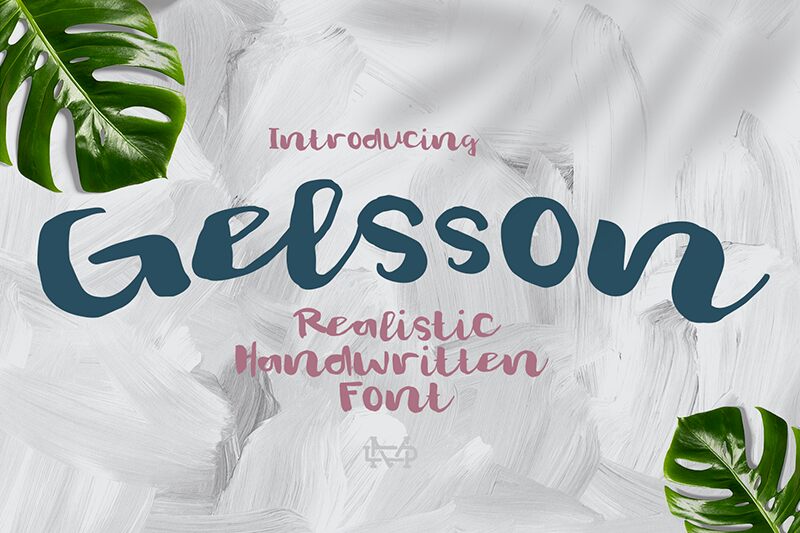
Gelsson Demo
Gelsson, a captivating brush-style font created by madeDeduk, exudes a bold and dynamic presence. Blending organic fluidity with a strong, confident structure, this typeface commands attention with its assertive strokes and distinctive character shapes. The bold weight amplifies the font's expressive qualities, lending an air of sophistication and elegance to any design. Gelsson's unique aesthetic invokes a sense of artistry and passion, making it a compelling choice for branding, headlines, or any project seeking to convey a bold, artisanal aesthetic.
Gelsson's versatility shines through its ability to seamlessly transition between contemporary and vintage-inspired design contexts. Its brush-like qualities lend themselves well to editorial layouts, packaging, and signage, where the font's striking presence can elevate the visual impact. Conversely, Gelsson's balance of elegance and assertiveness also makes it a compelling selection for modern web design, logo development, and other brand-driven applications that require a distinctive and memorable typographic approach.